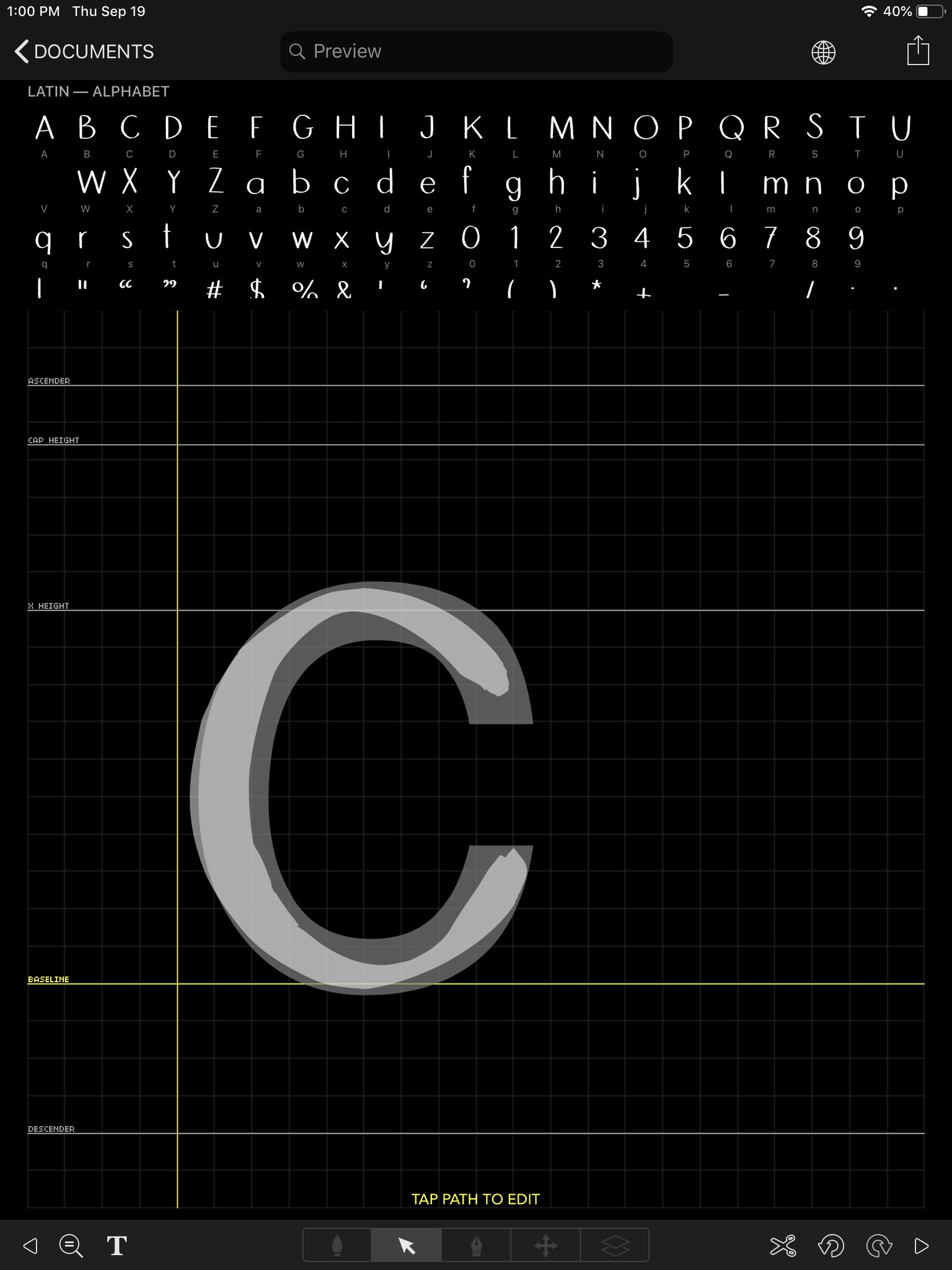
Once I saw this on the page I realized that the c was way narrower than the other letters and went back to adjust it. Whew, since it looks better it gets to be the star now.
I have to submit my handwriting as a font as part of an illustration brief. To be honest I have been dreading it, ( and yes, putting it off) , but I’m relieved and excited to find that it’s such a fun process! This class breaks it down into manageable parts, and the program is very simple to work with - and forgiving. Being able to go back in and make adjustments at any point feels like magic! I am going back in to create a cursive font with my handwriting and I’m not even worried. Thanks!